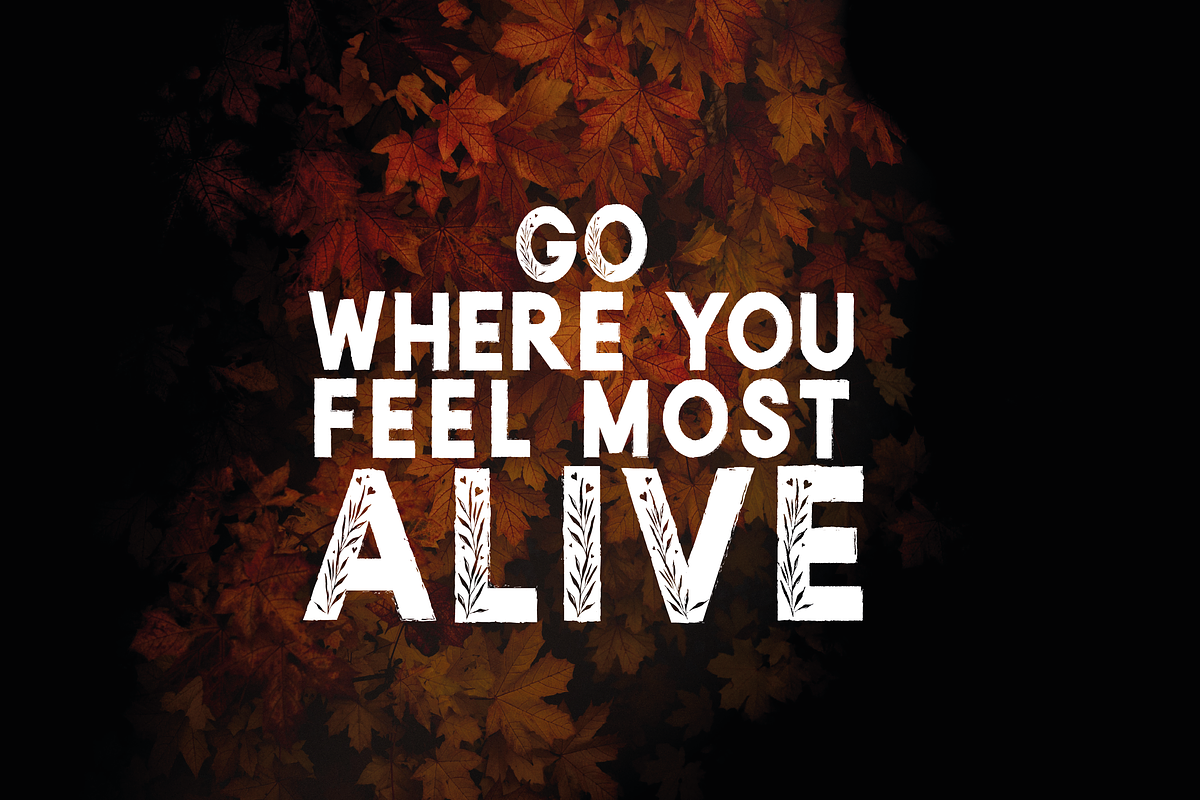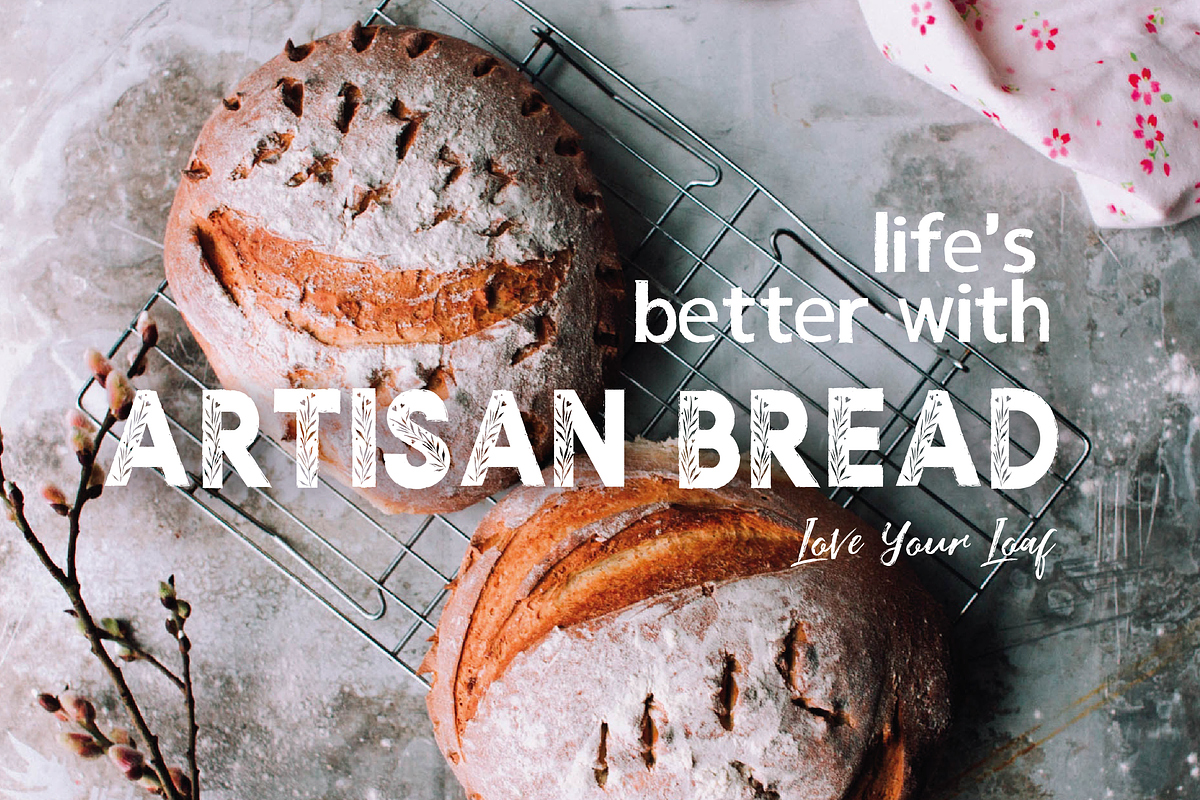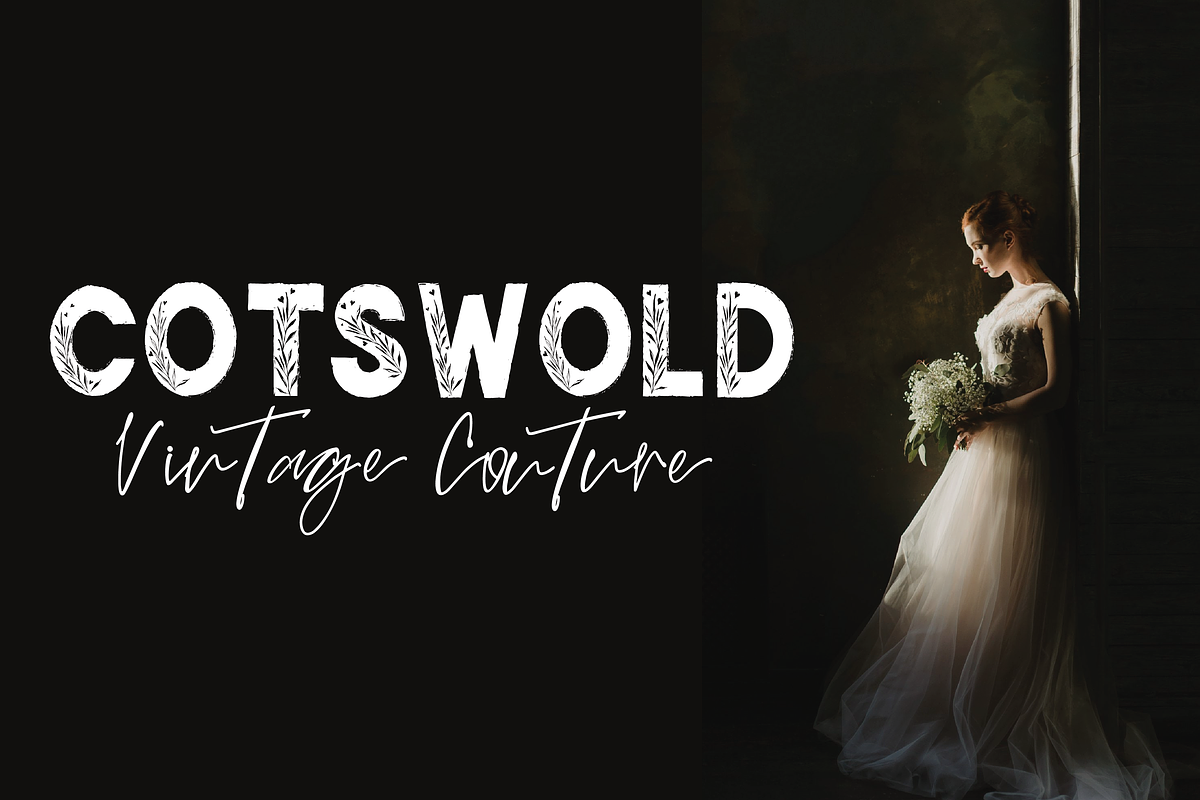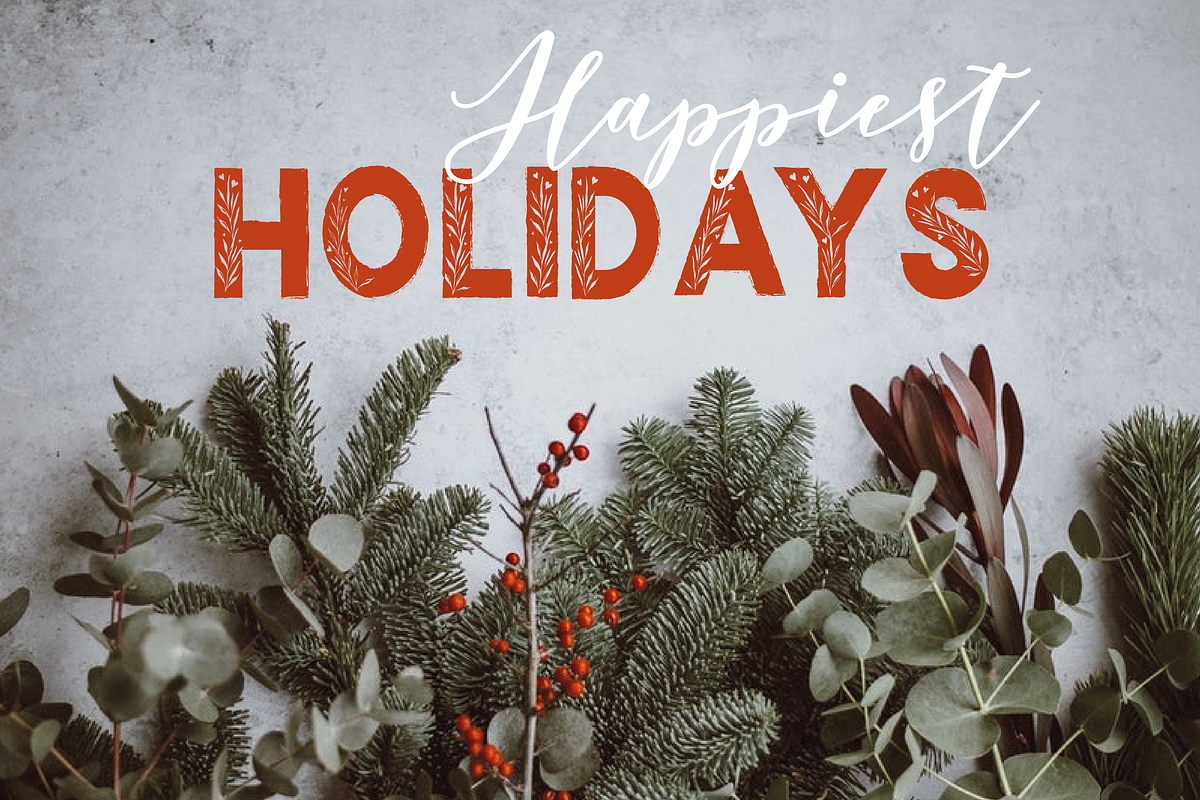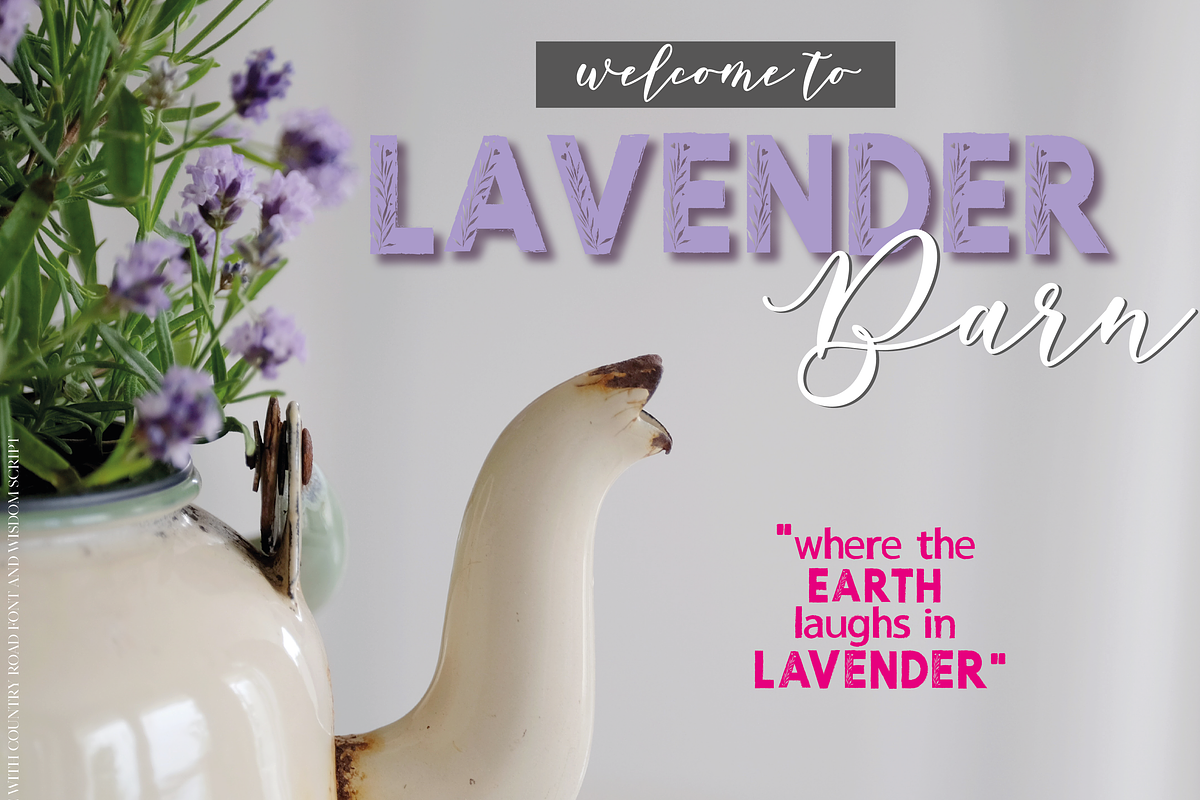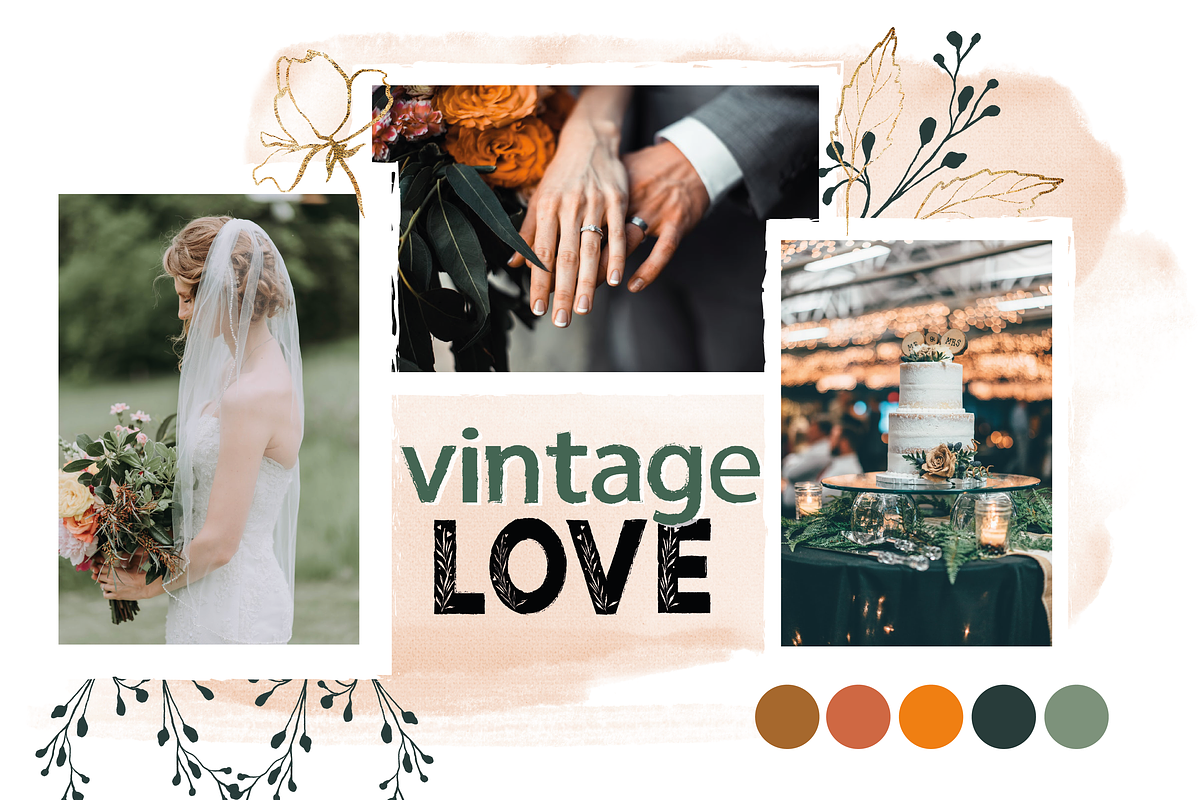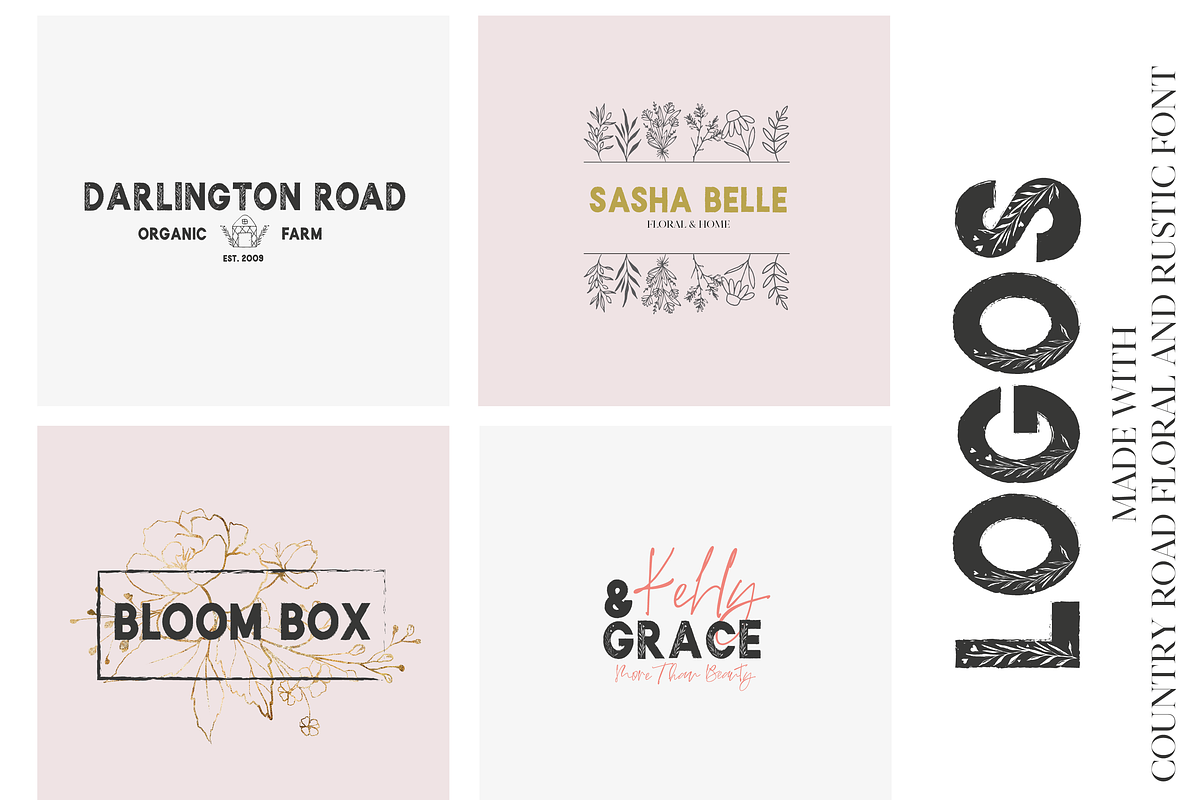
Country Road | Rustic Font
Introducing the brand new "Country Road" Font with a rustic shabby chic vibe.
This country-style typeface is perfect to add a vintage twist to your next project by indulging in nostalgic florals or adding a touch of ‘ohh la la’ with French country style.
This font is perfect for moodboards, logos, social media, scrapbooking designs and stationery. It will look stunning on bags, t-shirts and other merchandise!
Country Road floral with uppercase and lowercase letters, numbers a few punctuation characters with the floral design and international character support.
Country Road rustic (as style set 1) with uppercase and lowercase letters, numbers, punctuation and international support.
Mix and Match the floral and rustic fonts in your design!
Full upper and lowercase alphabet
Numbers and Punctuation
Foreign language support